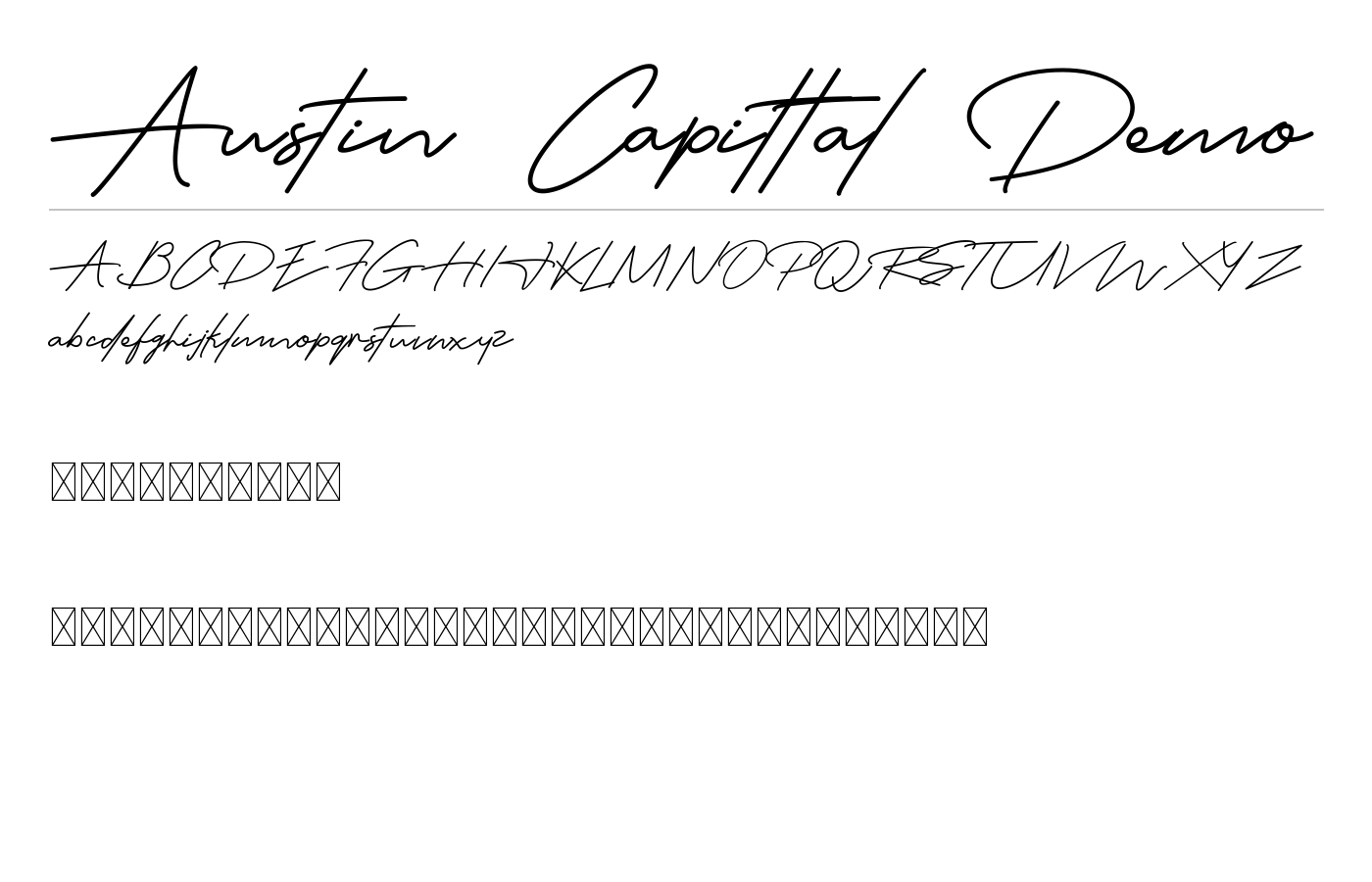
Austin Capittal Demo is a delicate, handwritten script font characterized by its thin, flowing strokes and elegant, natural curves. Its light weight and airy structure give it a casual yet sophisticated feel, making it ideal for branding, invitations, and stylish editorial designs that seek a personal, refined touch. This font works best in creative projects that benefit from a graceful, hand-crafted appearance without overwhelming the visual space.
Austin Capittal Demo Font
About Austin Capittal Demo Font
| Font family | Austin Capittal Demo Font |
| Designer | Burhan Afif |